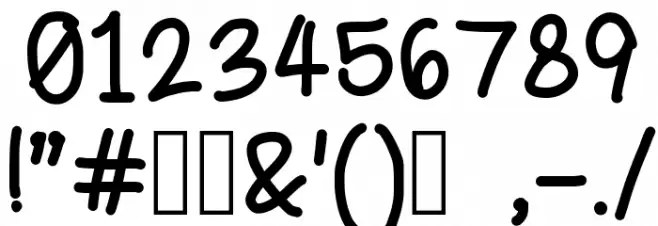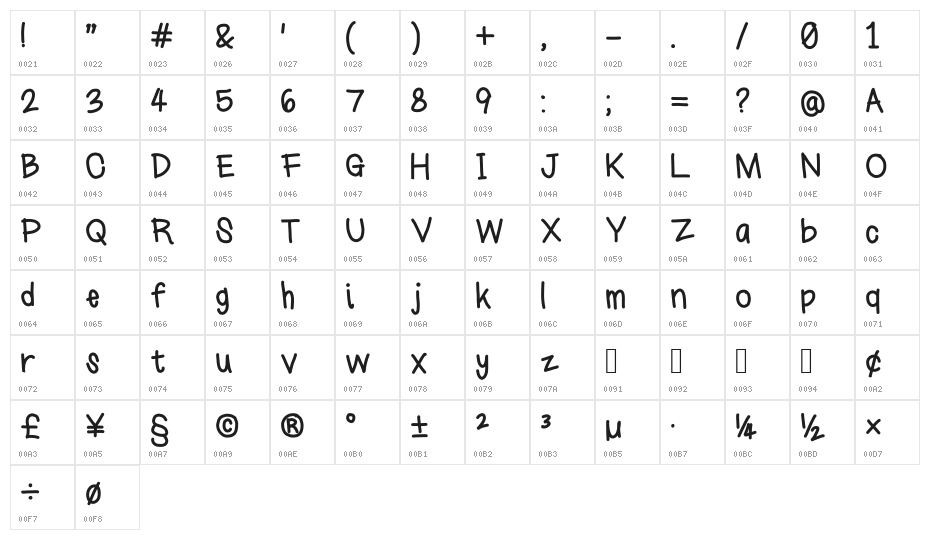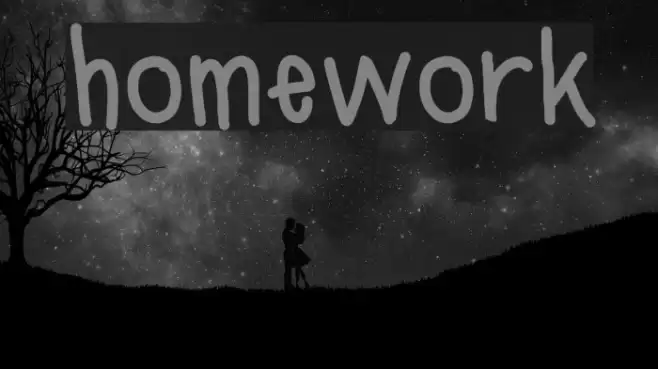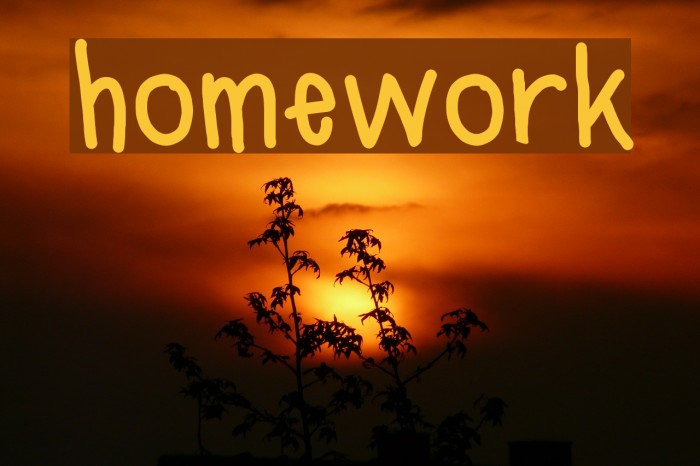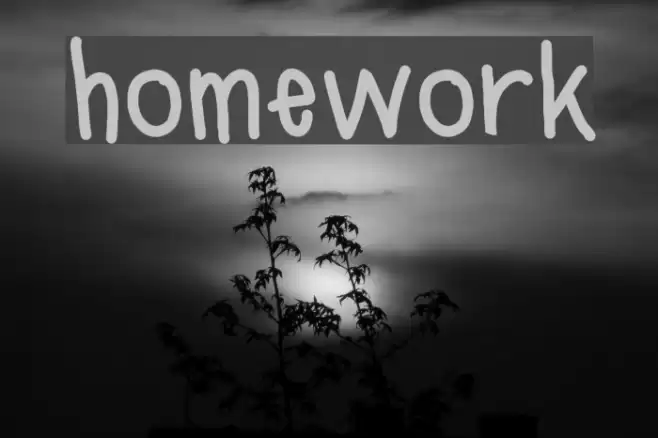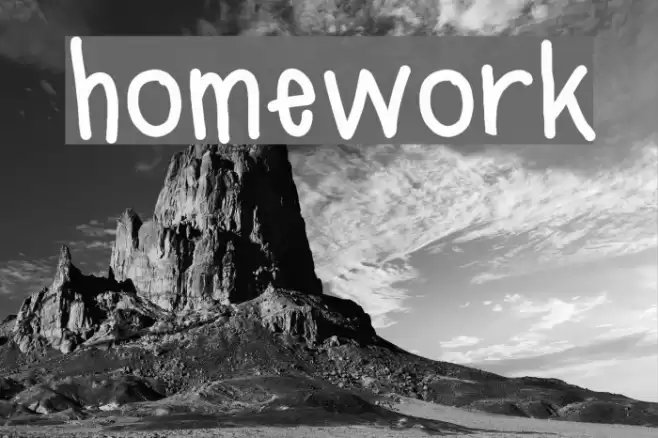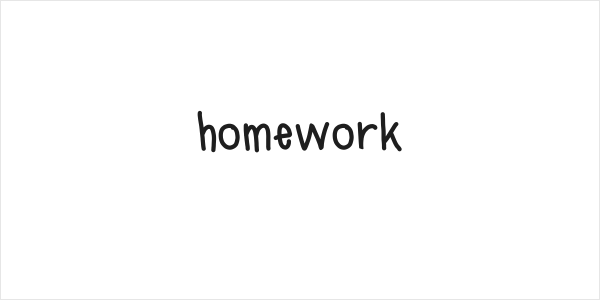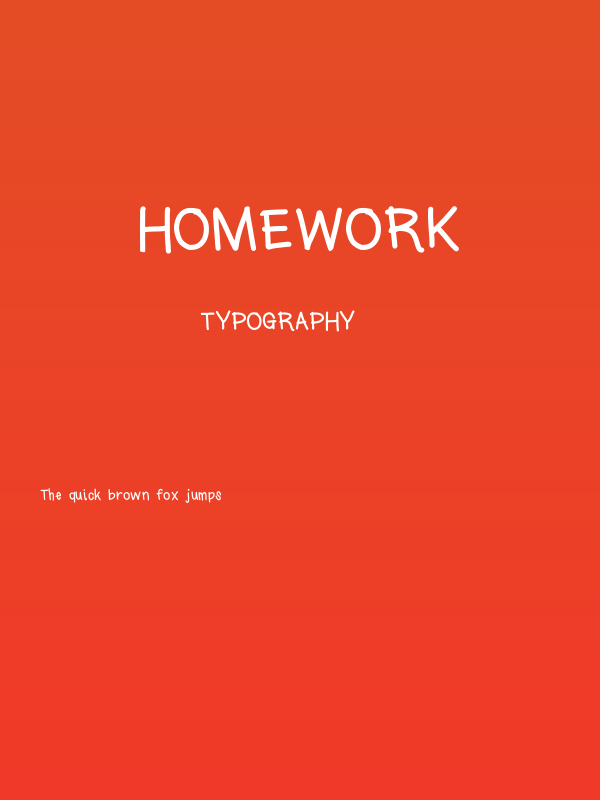
homework Font
homework Description
This playful and informal font features a handwritten style with a casual and friendly appearance. The letters are slightly irregular, giving it a personal touch that mimics natural handwriting. The strokes are consistent in width, providing a uniform look across all characters. The rounded edges and smooth curves enhance its approachable and warm feel. This font is versatile, suitable for projects that require a personal or informal tone, such as children's books, greeting cards, or casual invitations. The numbers and special characters maintain the same playful style, ensuring consistency throughout any text.
| Use Case | Headlines, Informal text, Personal notes |
| Proposed Projects | Ideal for children's books, greeting cards, casual invitations, and personal notes. |